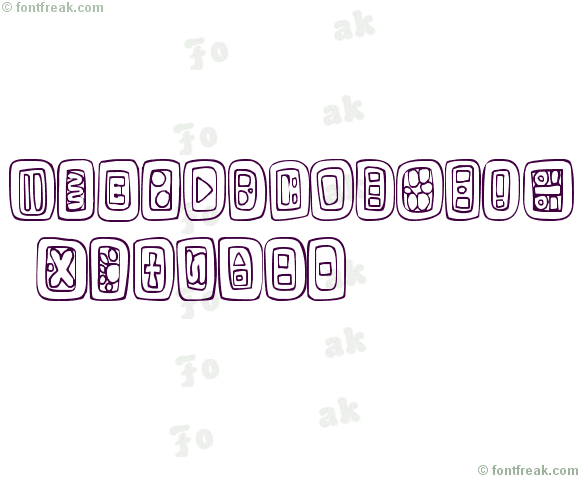
FE-NaturalSigns
About FE-NaturalSigns
FE-NaturalSigns is a distinctive display font that captures the essence of playful creativity. Created by Font Environment, this font is characterized by its unique, hand-drawn style, making it ideal for projects that require a personal touch. The strokes are uneven, offering a charming, informal appearance that resonates with a variety of audiences. The spacing is intentionally loose, enhancing its whimsical nature and making it easy to read in both headlines and shorter text.
The visual characteristics of FE-NaturalSigns include a moderate stroke weight, which strikes a balance between boldness and subtlety. The lack of sharp contrasts adds to its approachable look, ensuring it feels friendly and engaging. The decorative elements, such as rounded edges and irregular forms, contribute to its organic feel, reminiscent of natural signs one might find in a casual setting.
This font is particularly well-suited for various applications. It shines in wedding invitations, where its informal charm can evoke a sense of warmth and celebration. Additionally, it works beautifully on restaurant menus, giving a friendly vibe that complements casual dining experiences. Graphic designers may find it perfect for children’s book covers, as its playful nature appeals to younger audiences. Moreover, small business owners can use FE-NaturalSigns for branding materials, as it conveys creativity and approachability.